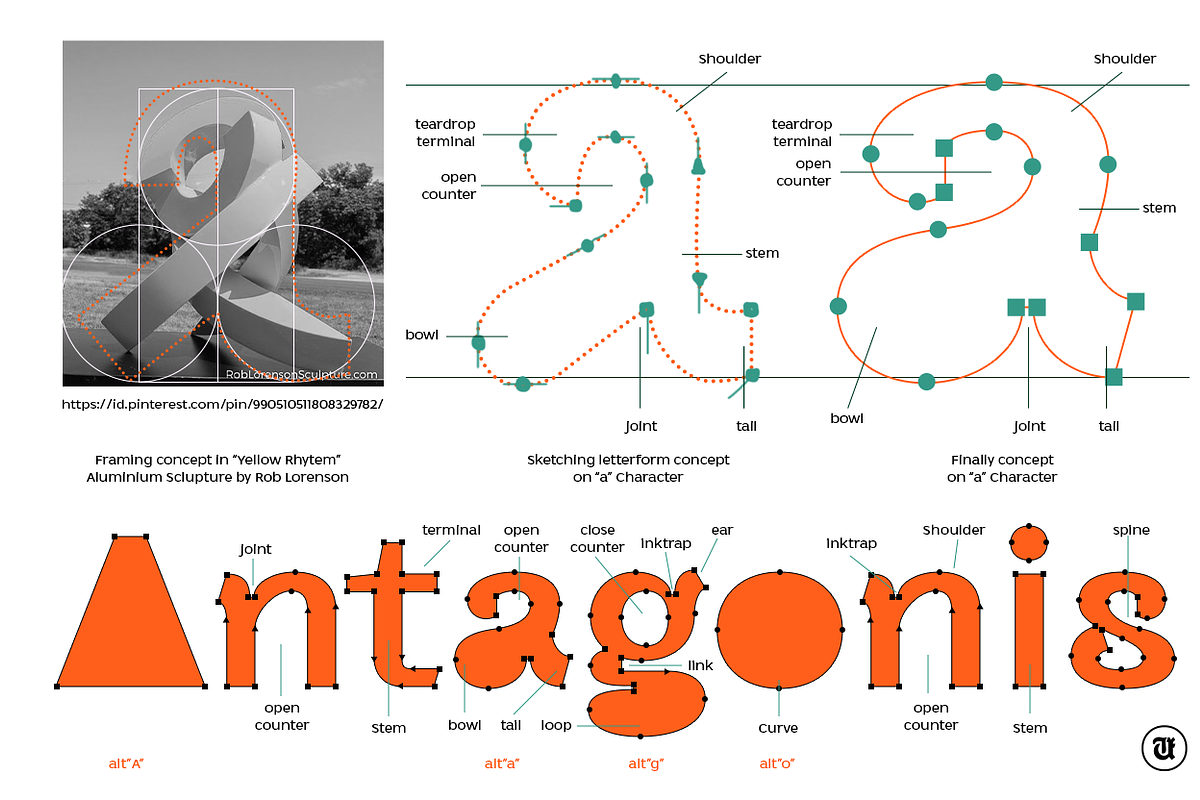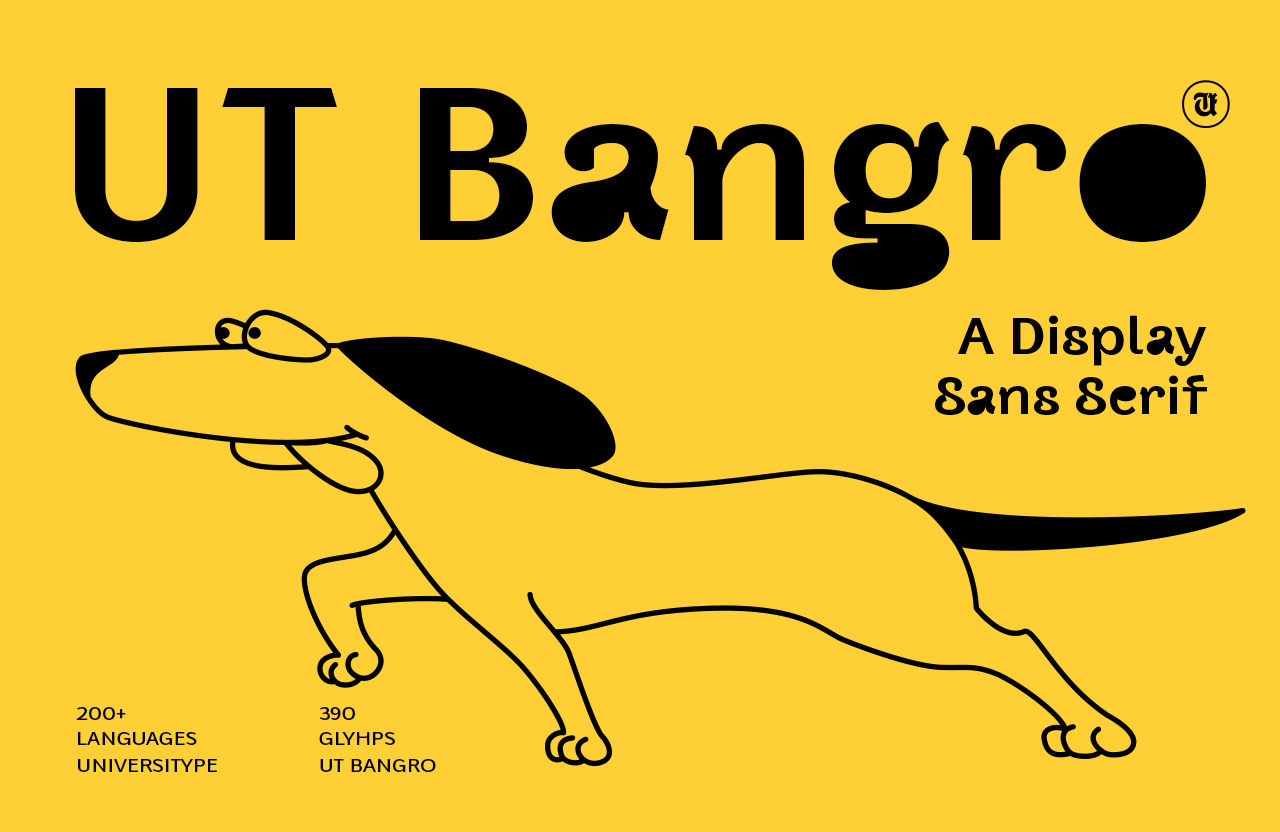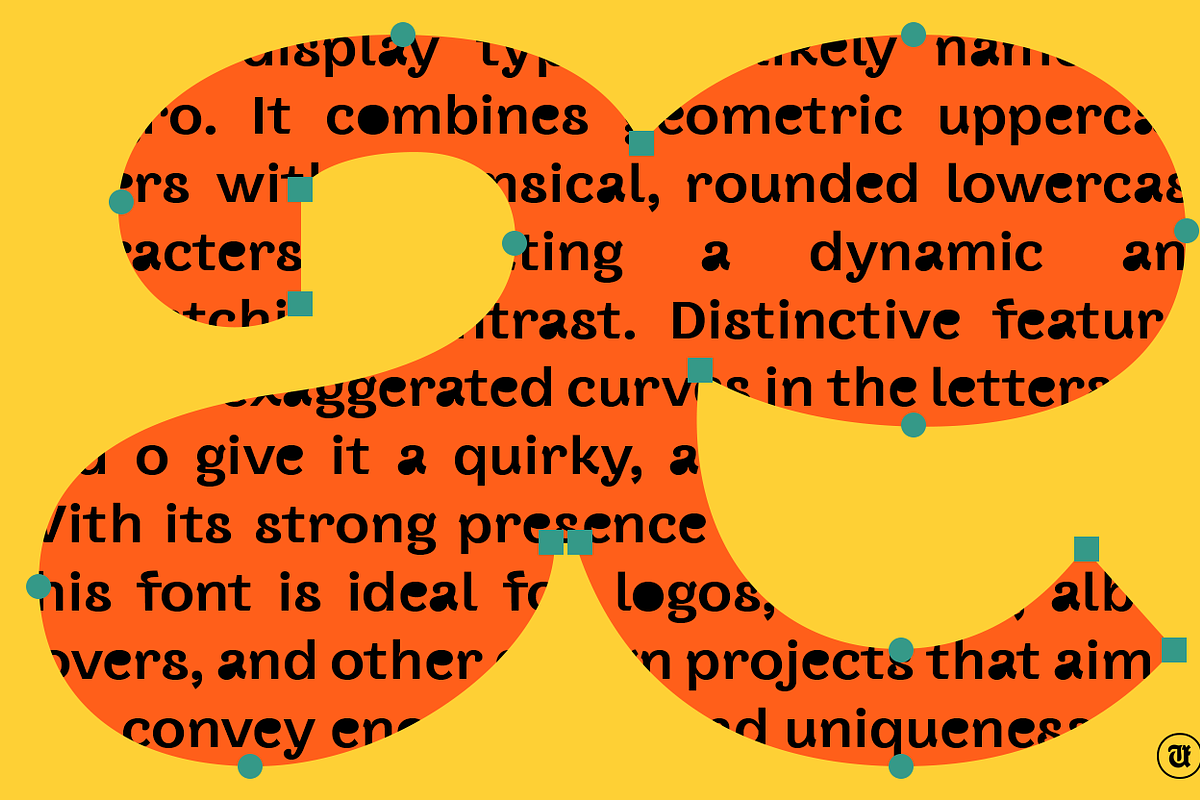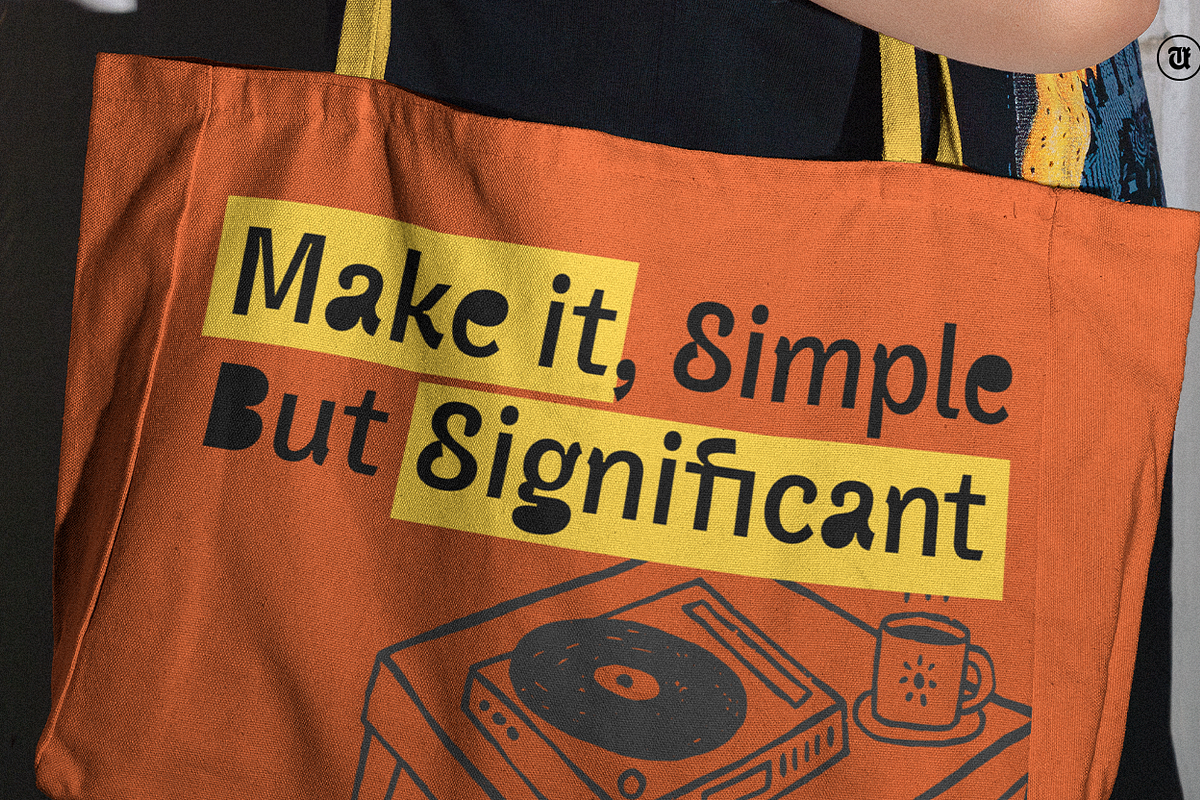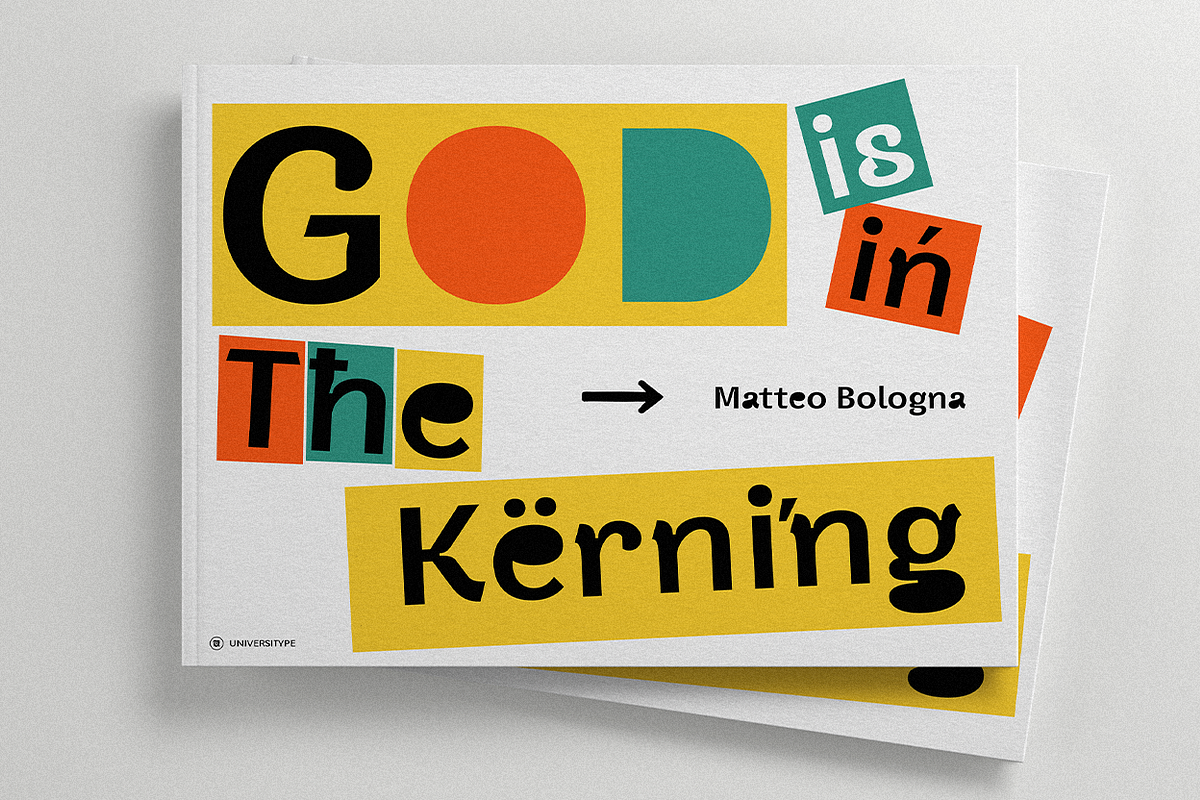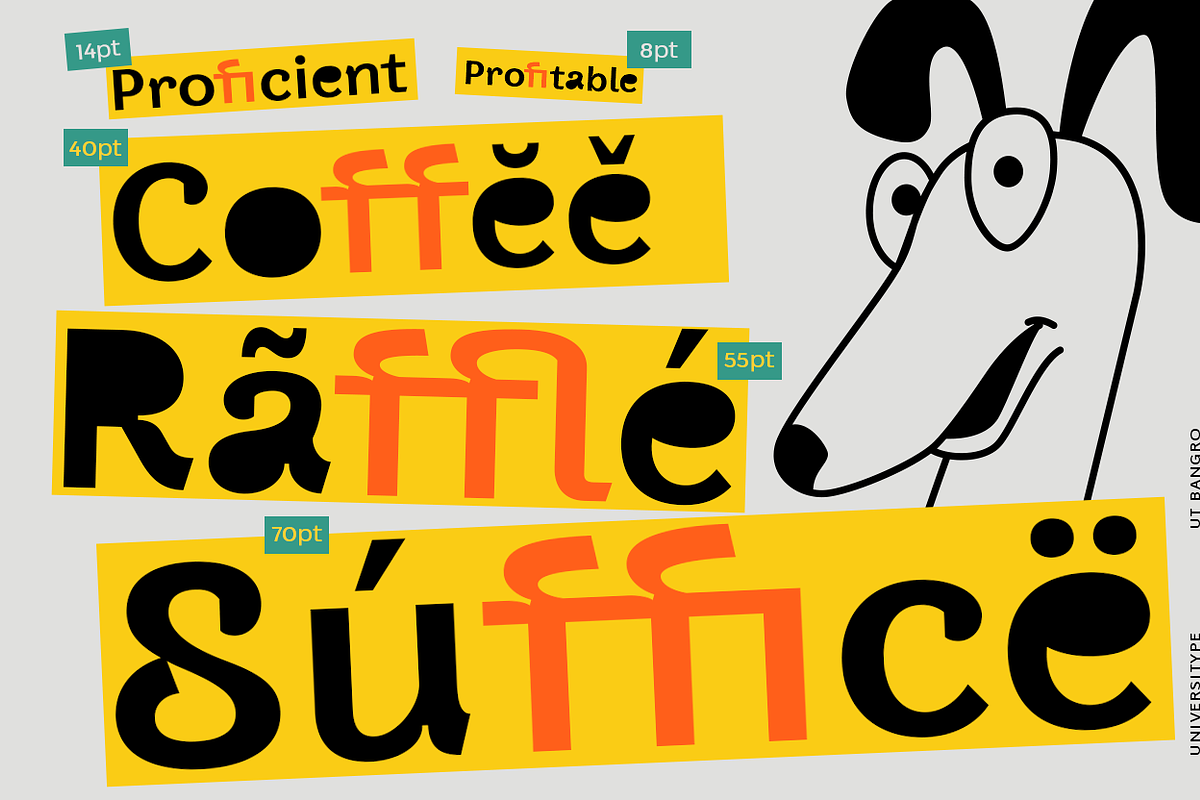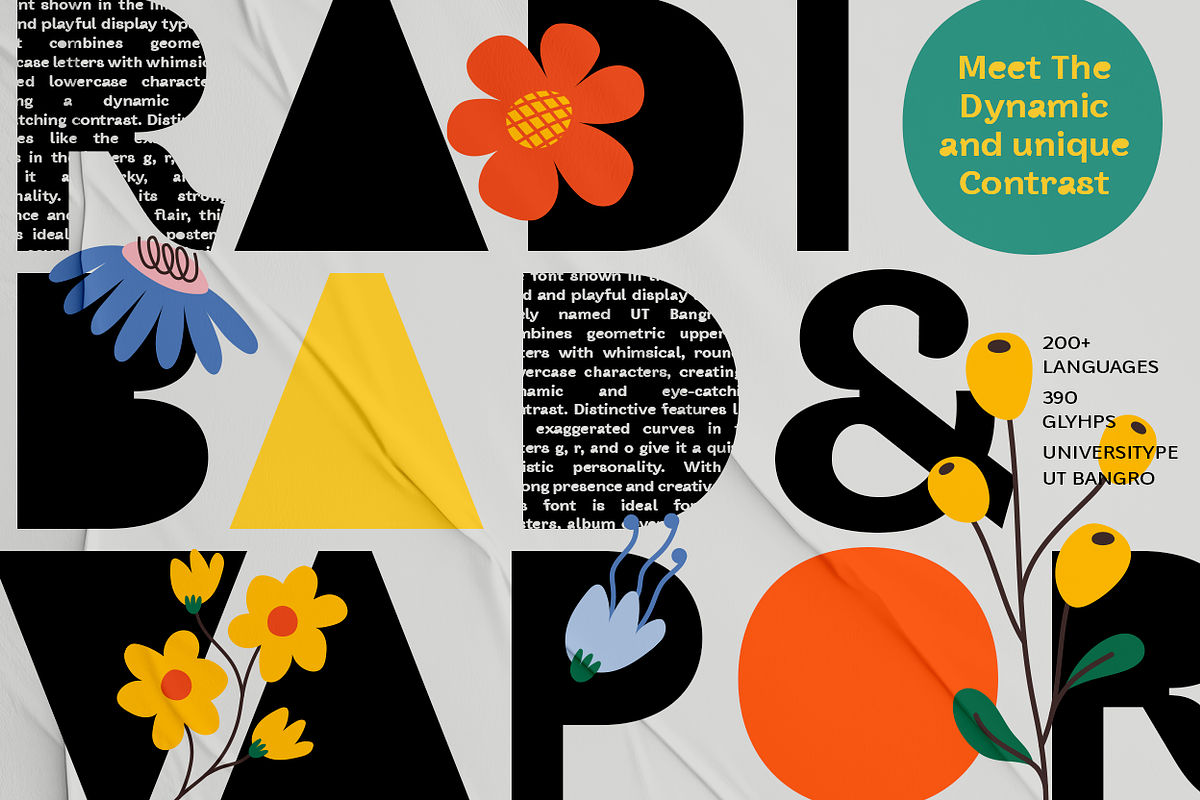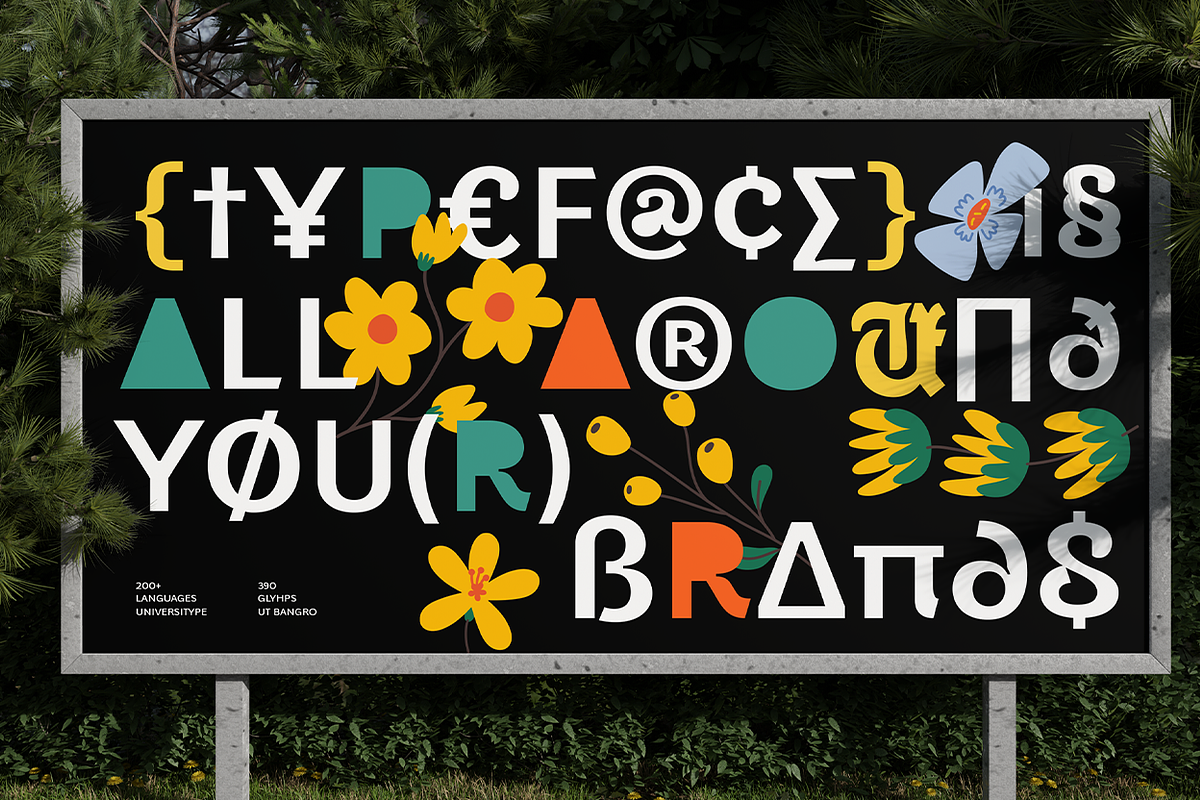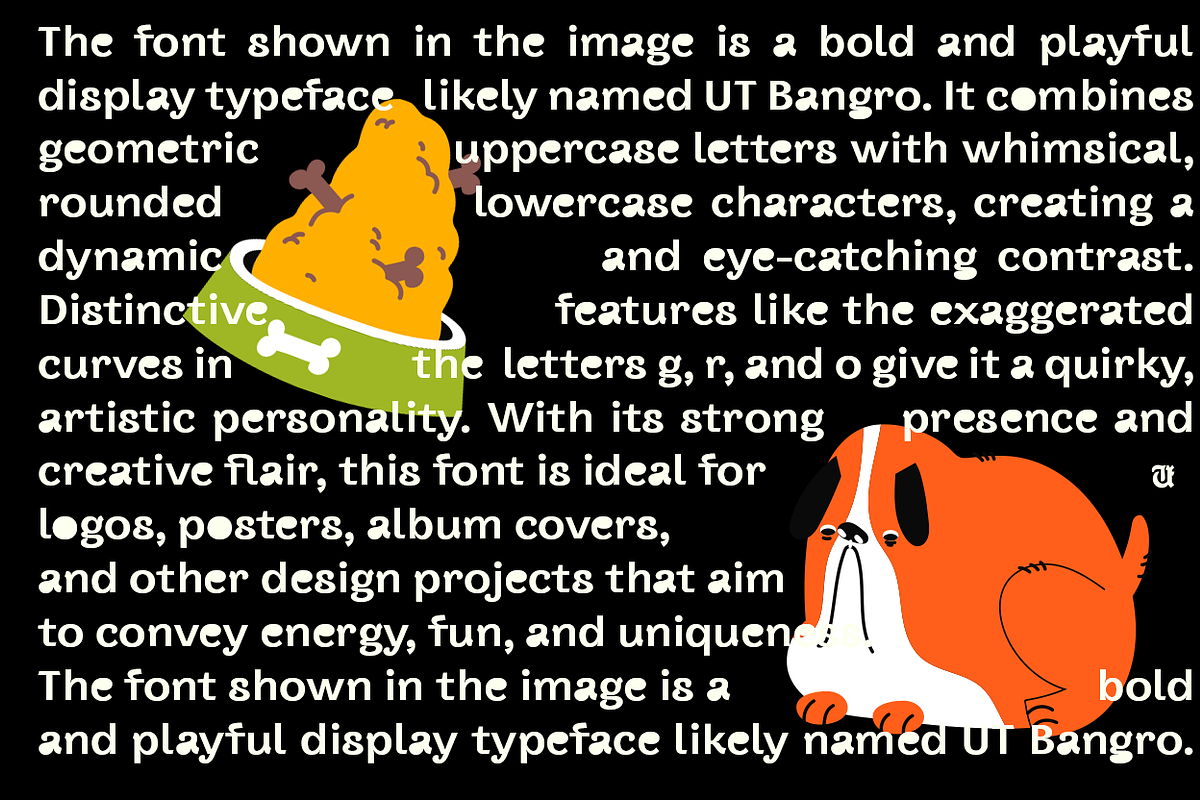
UT Bangro - A Bold Dsiplay Font
Immerse yourself in the playful energy and assured confidence of the UT Bangro font. This bold, impactful typeface is a display sans-serif sensation, brimming with creativity. Each curve, indentation, and terminal in the typographical masterpiece is meticulously designed to breathe life into your textual expressions. UT Bangro doesn't merely say something – it joyfully shouts it out, dances, and grins from ear to ear.
UT Bangro rises to prominence for your show-stealing moments. Be it for a striking brand identity, dynamic editorial layout, captivating poster design, or an appealing product label, it injects charisma and a distinct rhythm. Its unique detailing and expressive alternatives ensure a vibrant, lively persona whilst maintaining legibility.
If you're a creative professional seeking a break from unsatisfying sans serifs, if your backdrop is one of boldness and daring character, if vivacity and movement define your work - then find a home for UT Bangro in your font library.
Behold the distinctive features of this playful sans serif, including sculptural curves and teardrop terminals, alternatives that offer depth and variance, and commanding attention with its bold ink traps and dynamic forms. It houses 390+ glyphs and supports 200+ languages.
The heart of UT Bangro is not just presented, but passionately sculpted. It's heavily influenced by the world of modern sculpture, exemplified by Rob Lorenson's powerful “Yellow Rhythm” pieces, which artfully contorts steel into motion. Just like Lorenson's work, UT Bangro thrives on the beautiful discord between form and freedom.
The font embodies the illusion of motion – with certain letters slightly leaning forward, others stretching open wide. This imparts a sense of kinetic energy and raw emotive expression. Its tapered teardrop terminals mimic the fine edges of sculptured curves, with asymmetrical counters reflecting the play of light and shadow. The font's “dance-like” posture creates momentum across words, making it feel pulsating and dynamic.
UT Bangro is not just an ode to shapes and forms; it celebrates movement, contrast, and refined chaos. It is designed for those who perceive letters as more than symbols – they are shapes with a life of their own. This font style features a display sans serif, and it is delivered in OTF, TTF, and WOFF file format. The character set comprises 390+ glyphs and supports more than 200 languages, making it ideal for headlines, posters, merchandise, web banners, and branding systems.